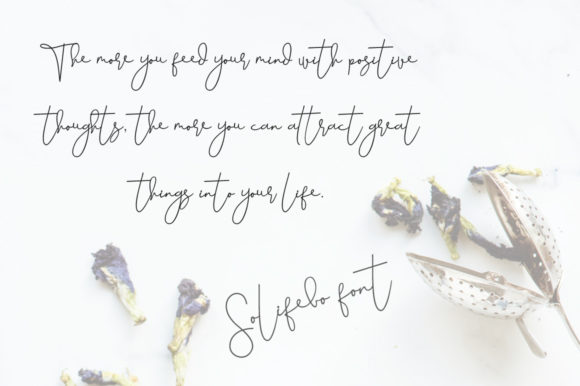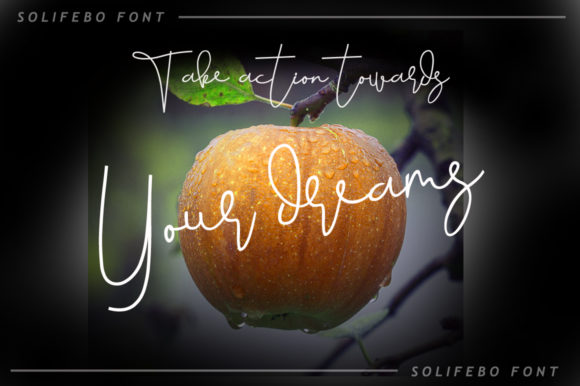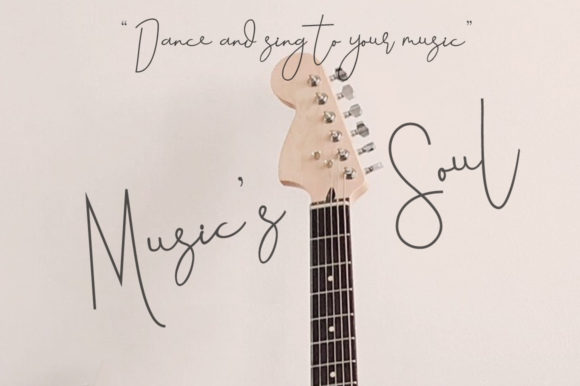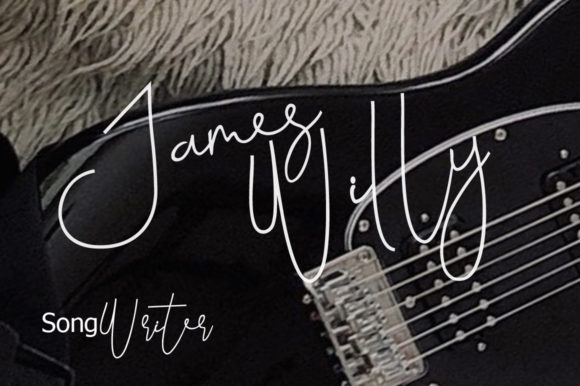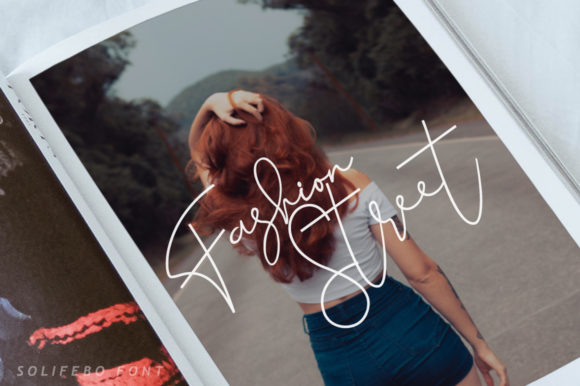
Solifebo Font
About Solifebo Font
The Solifebo is a signature typeface with beautiful curves. It has a dynamic look and an amazing natural feel.
It’s perfect for signatures, quotes, wedding invitations, logos, branding, and much more!